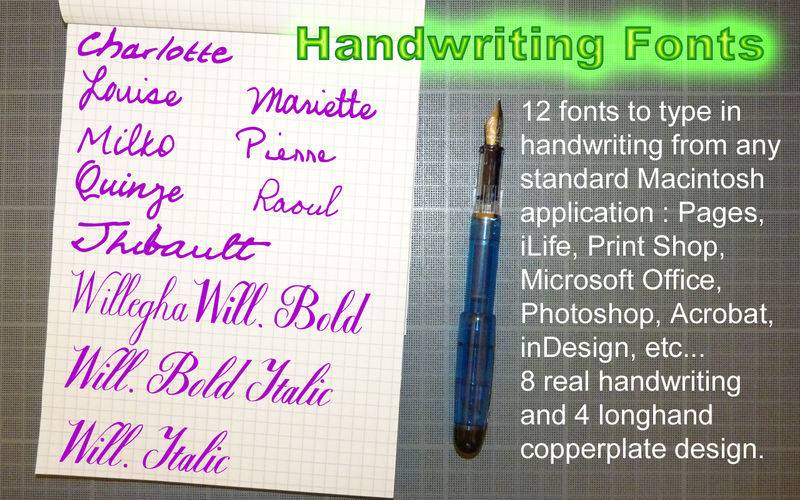
12 fonts created from real handwriting to produce documents that look and feel as if they had been written manually.
8 of these fonts are everyday script taken from real contemporary handwriting, perfect for memos, envelopes, letters, etc. 4 fonts represent the best in English round copperplate quill writing, taken from a calligrapher work, great for formal text such as invitations, postcards, weddings, menus, poetry, inspirational phrases, etc.